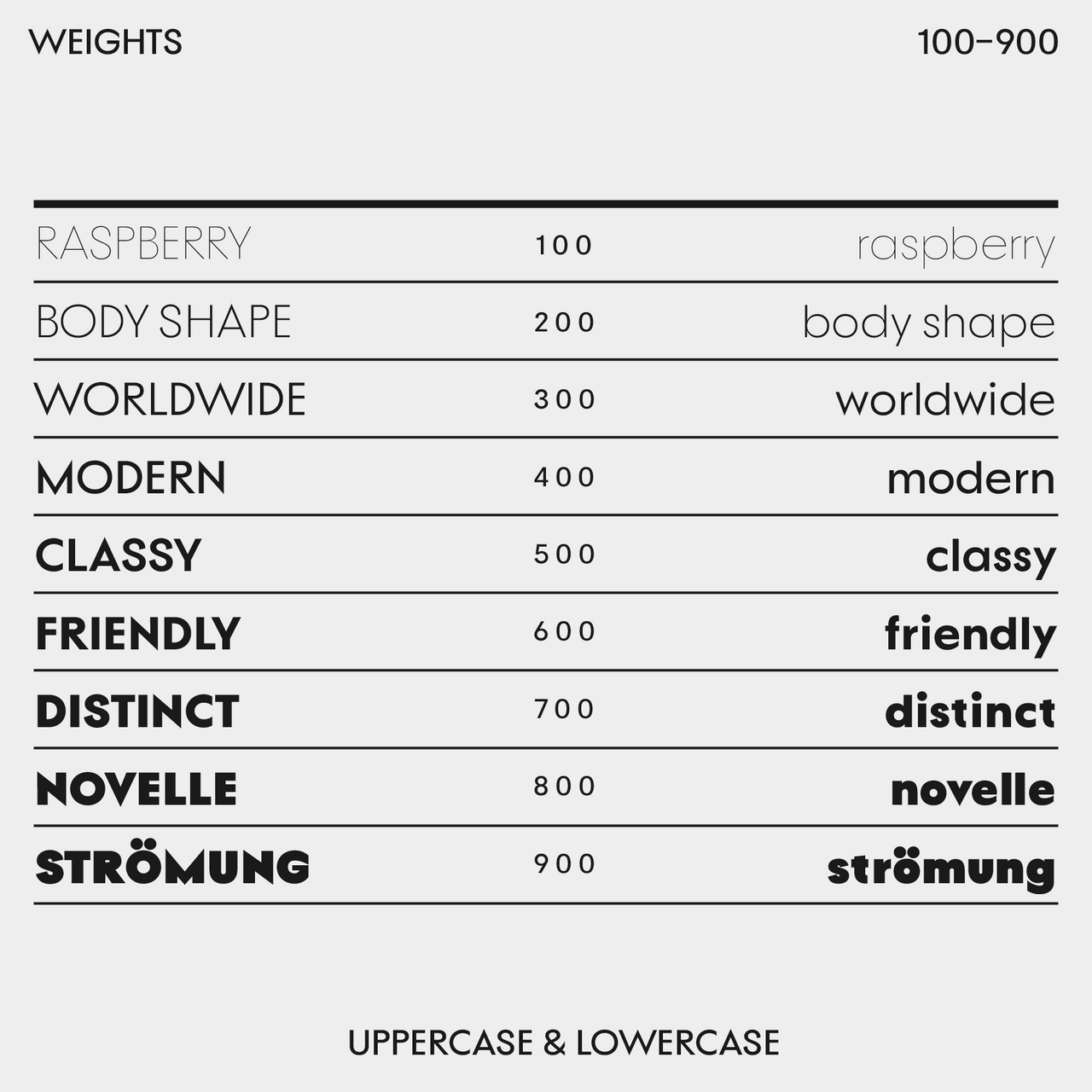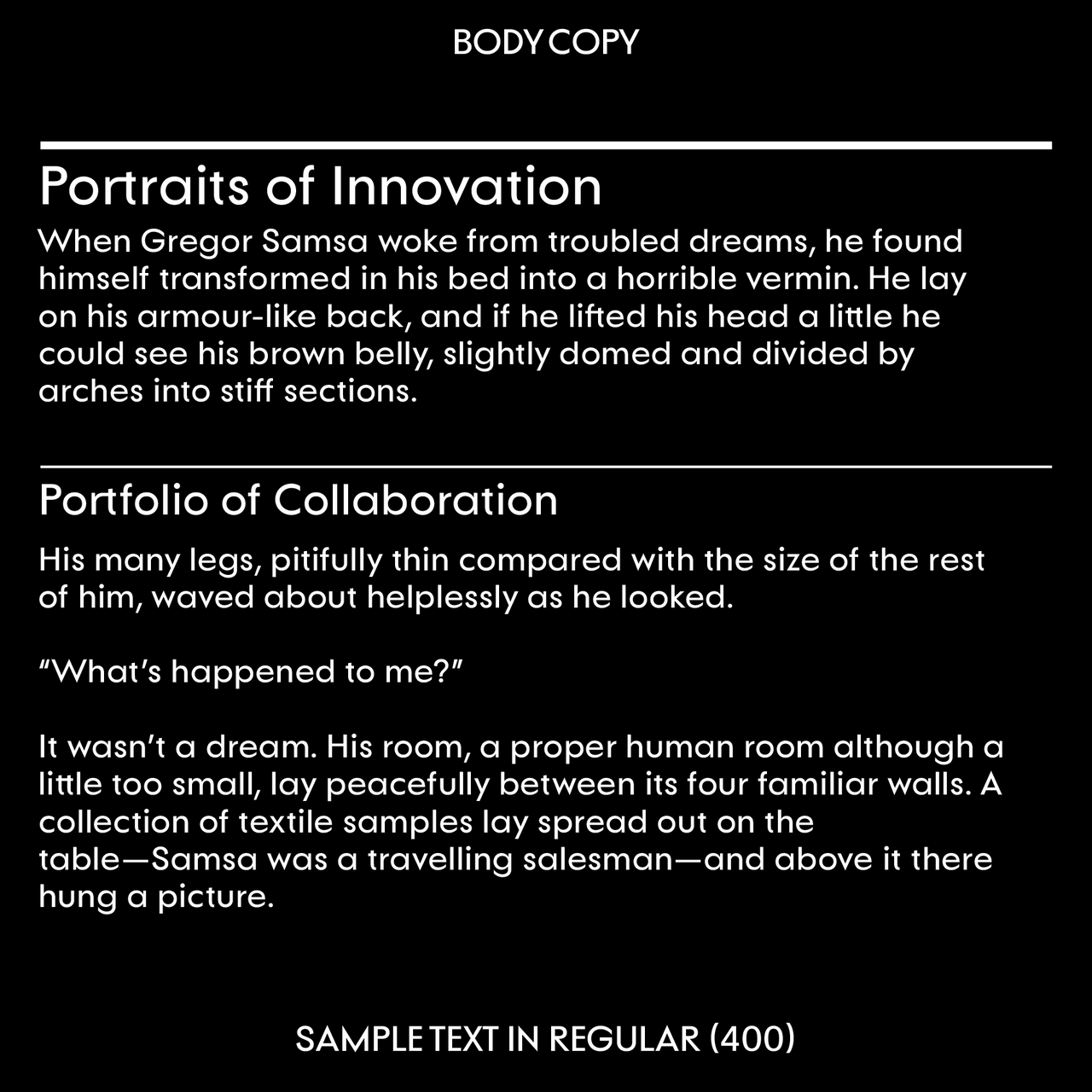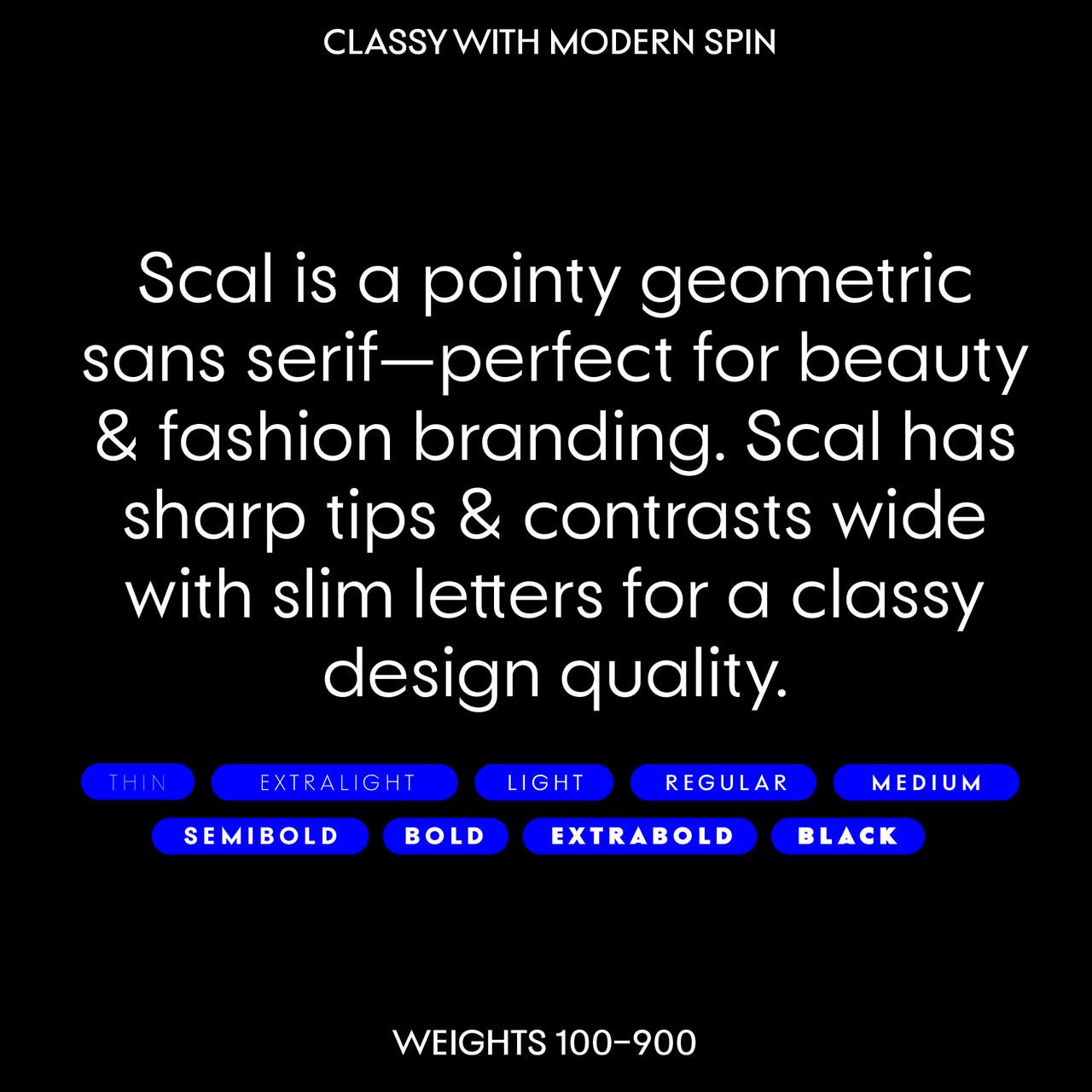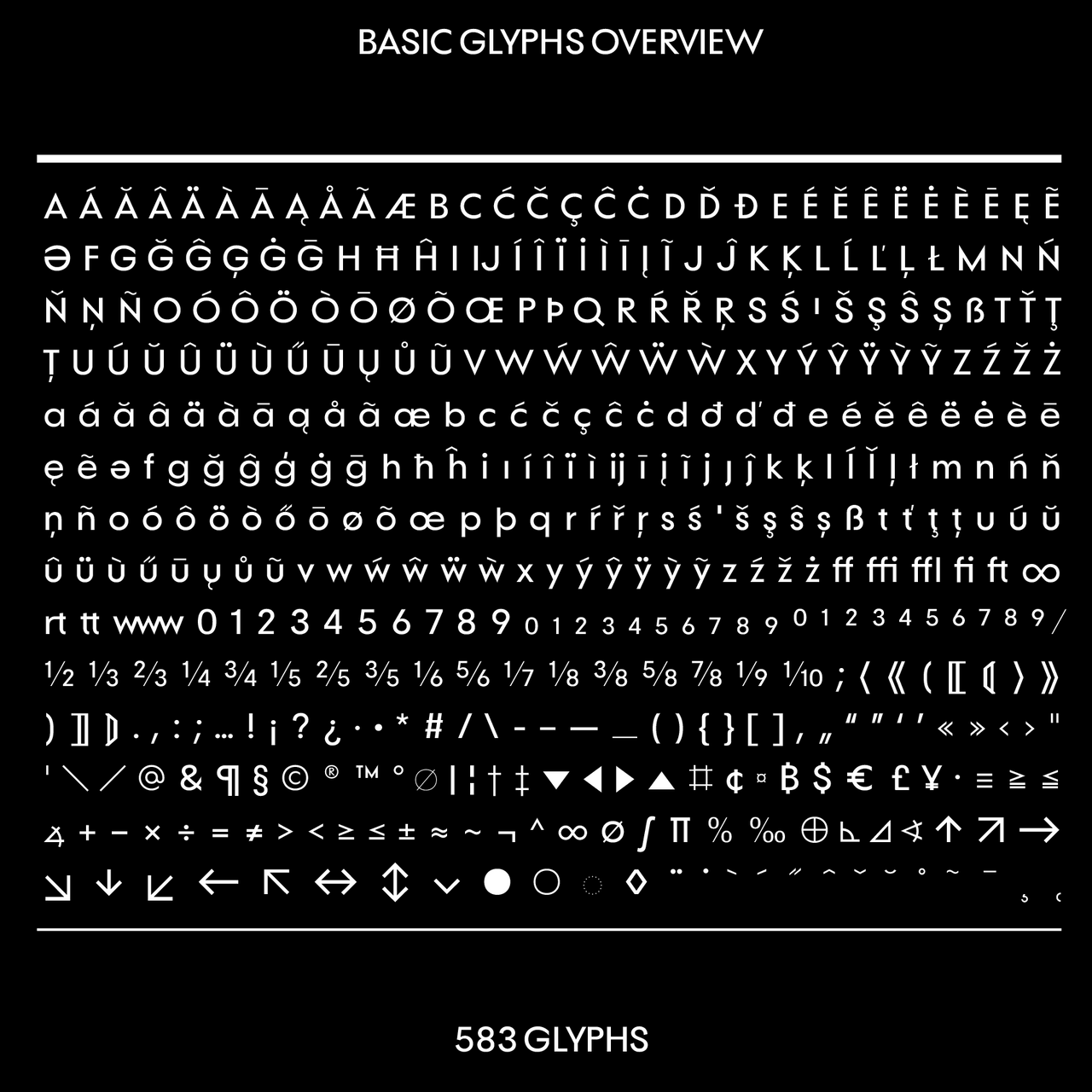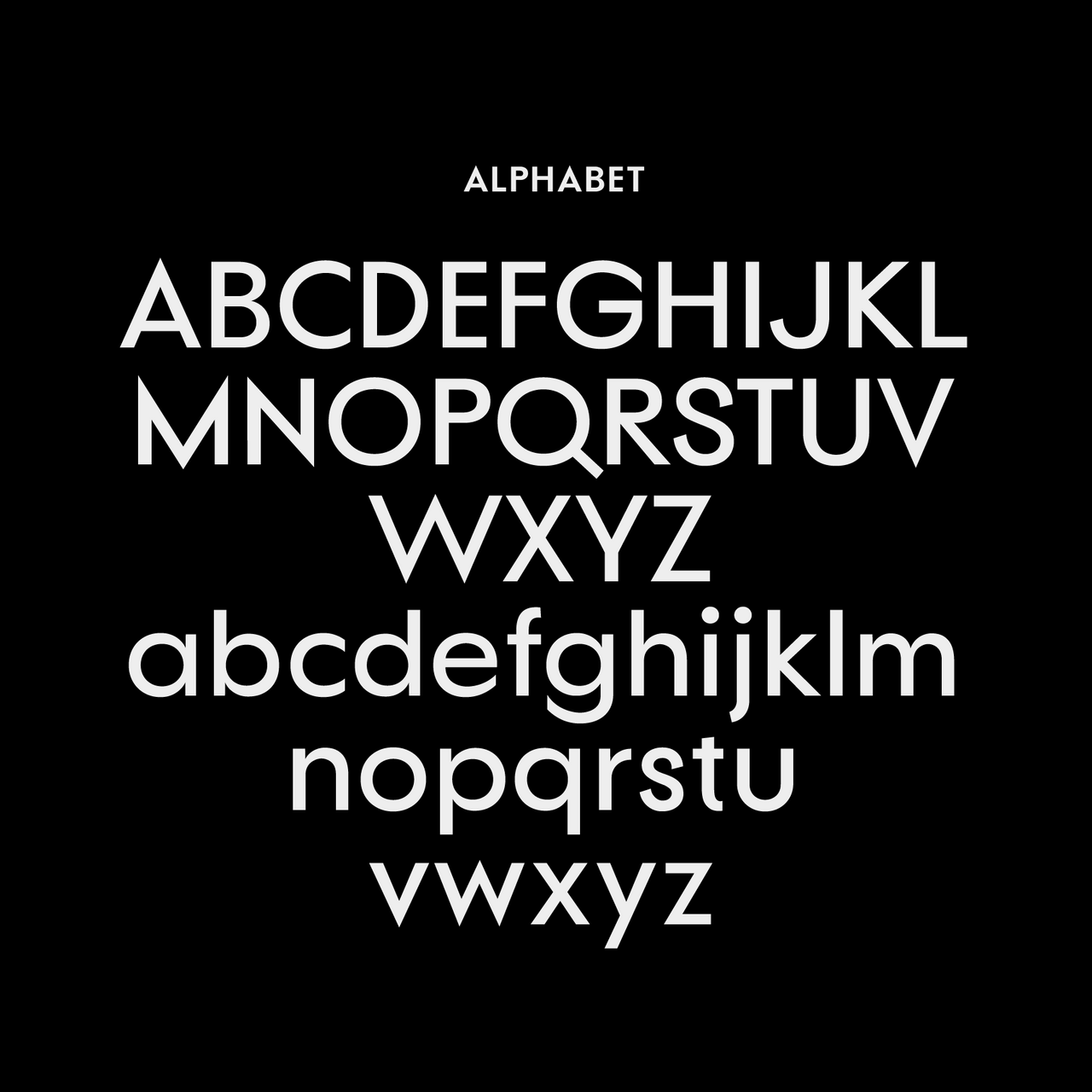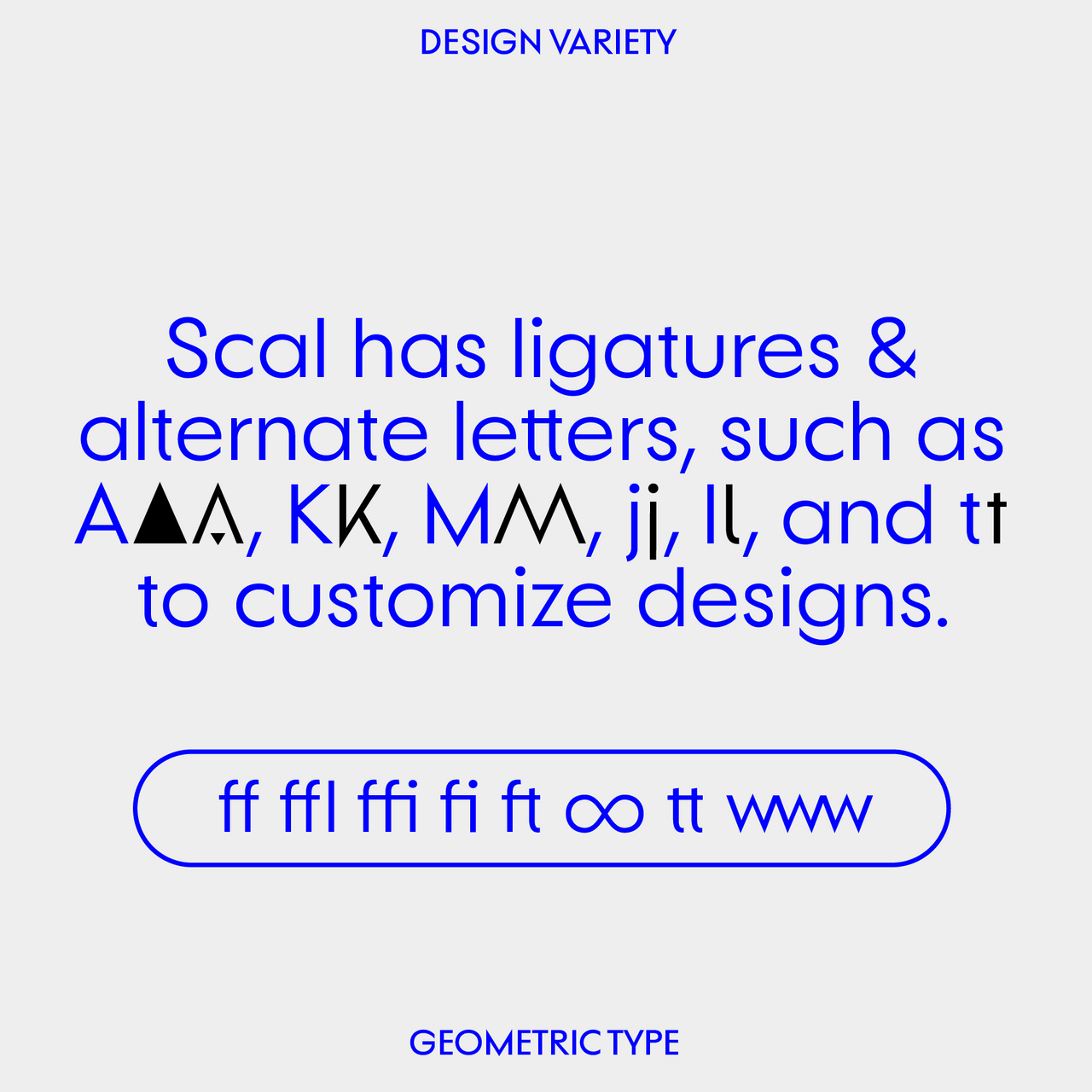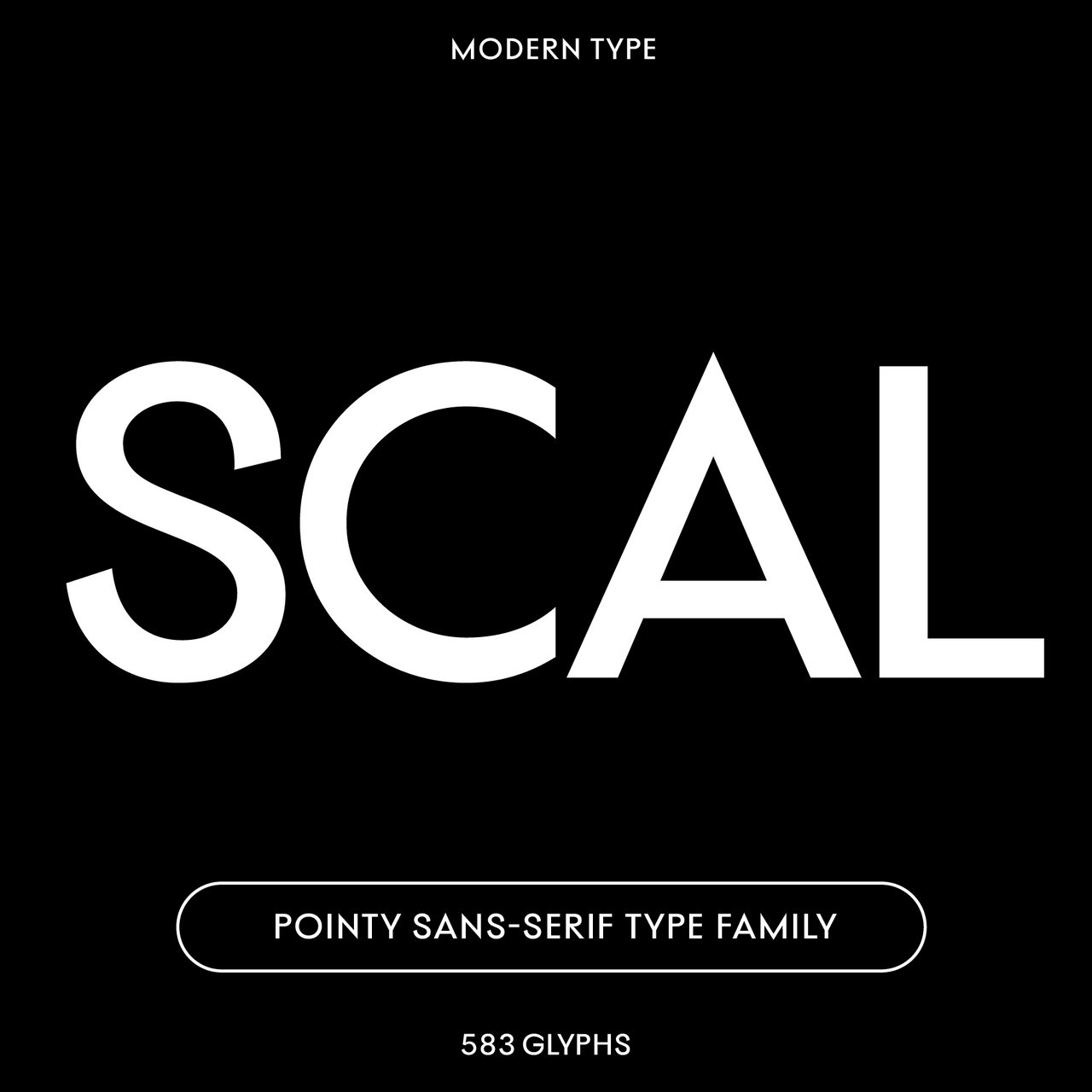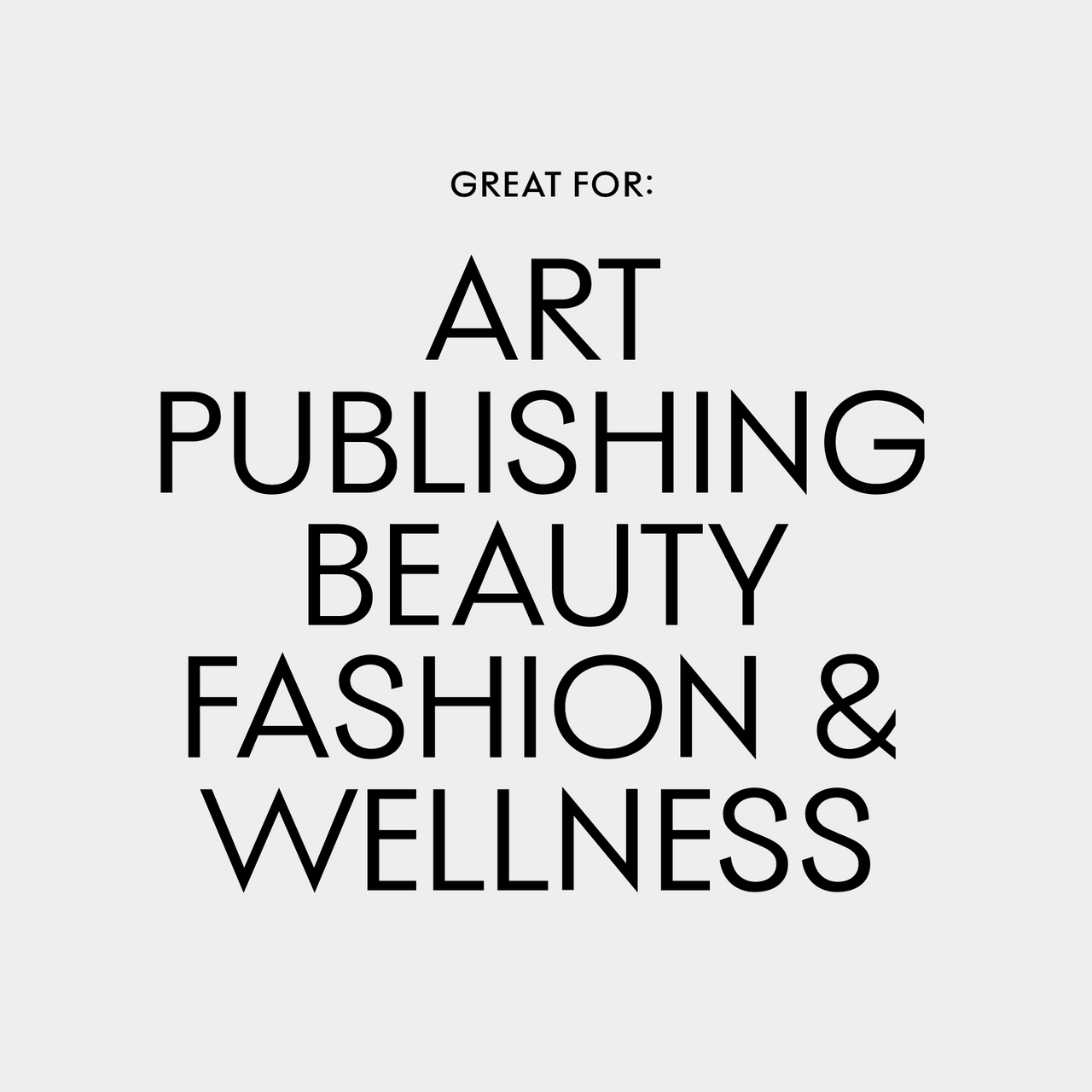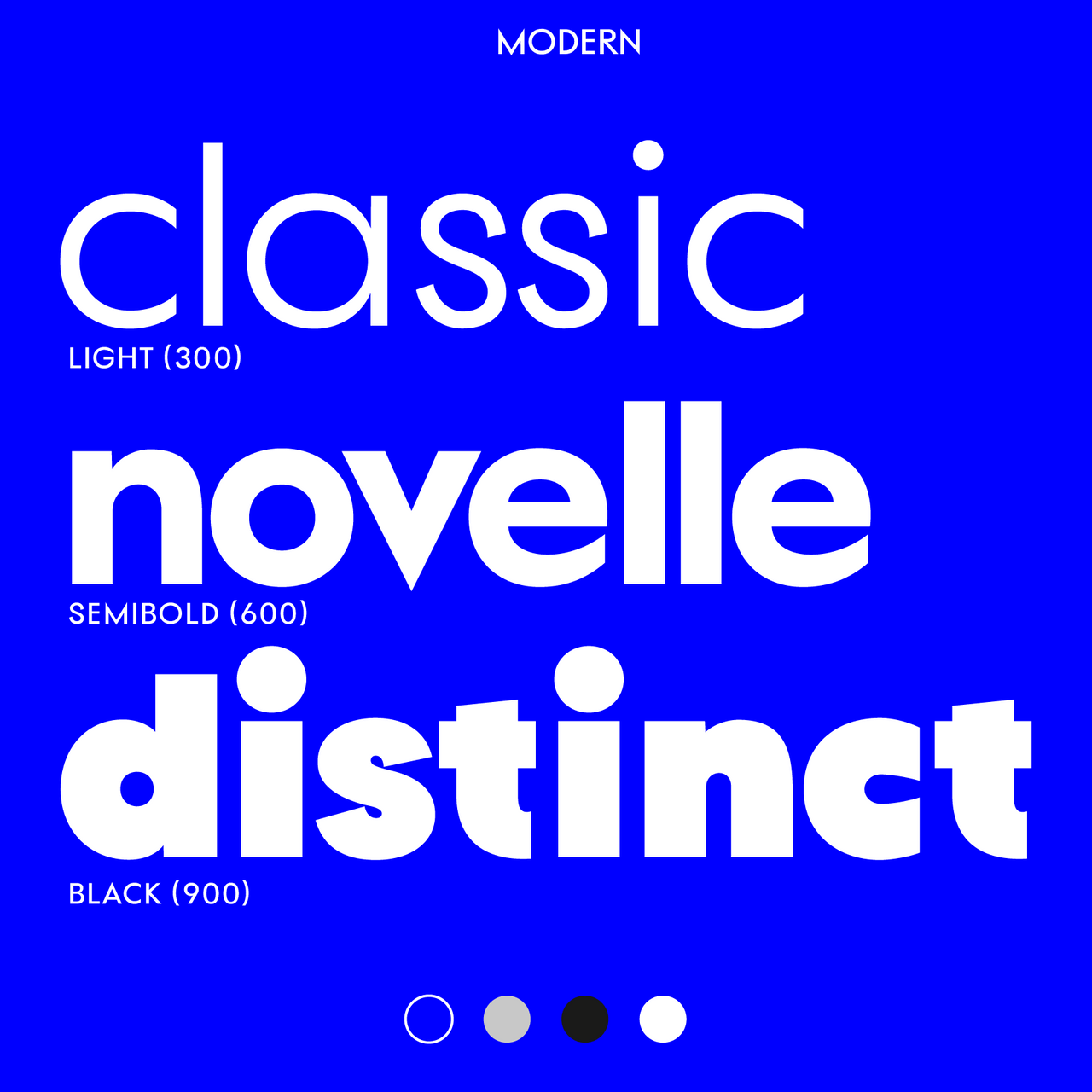
Scal—Pointy font, sans-serif classic with a modern take
Scal: A modern take on Futura, designed for impact. This minimal geometric typeface features sharp terminals on key letters like S and G, giving it a cutting-edge, design-forward feel. With rounder characters like a and o, Scal brings a fresh twist to classic styles, making it perfect for branding, titles, and body copy. Whether in sleek lighter weights or bold styles, Scal’s versatility shines. Customize your designs with its ligatures and alternate letters. Available in nine font weights. Pairs effortlessly with Rozi, Kijs, and Edde.